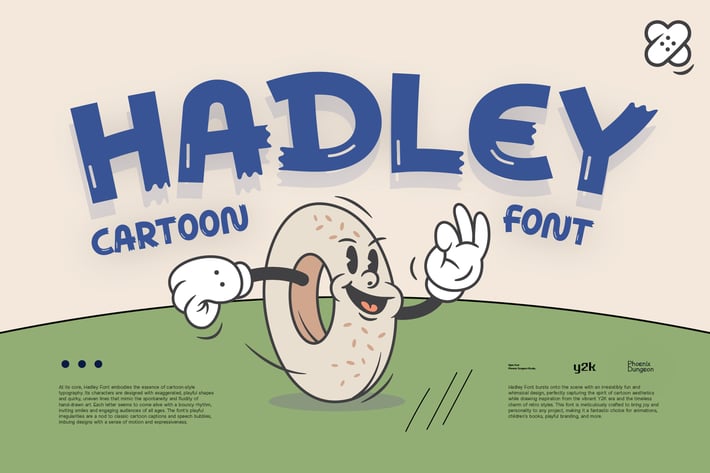
Hadley Font
Hadley Font bursts onto the scene with an irresistibly fun and whimsical design, perfectly capturing the spirit of cartoon aesthetics while drawing inspiration from the vibrant Y2K era and the timeless charm of retro styles. This font is meticulously crafted to bring joy and personality to any project, making it a fantastic choice for animations, children's books, playful branding, and more.